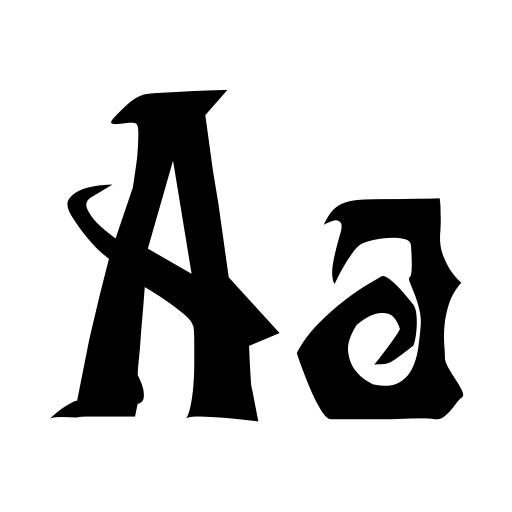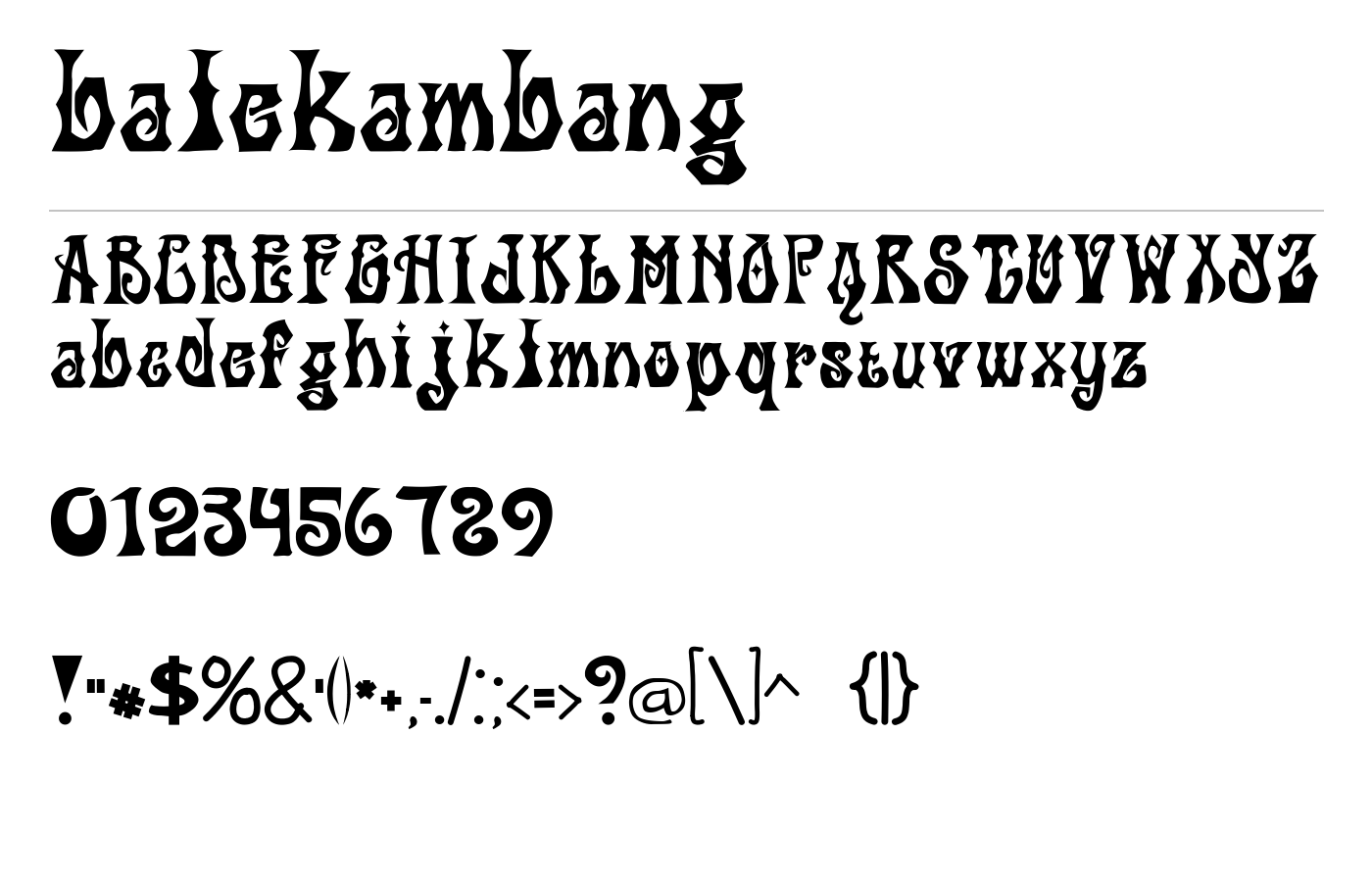
Balekambang is a bold, decorative serif font with a vintage and gothic flair, featuring thick strokes combined with sharp, bracketed serifs and distinctive, playful letterforms. Its high contrast and unique shapes make it ideal for eye-catching headlines, posters, or branding that demands a strong, artistic presence. This font works best where a dramatic, old-world personality is desired, adding a sense of mystery and character to creative designs.
balekambang Font
About balekambang Font